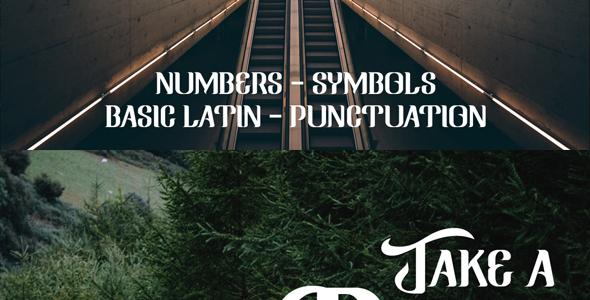
Ringam Typeface
Hi there! Presenting to you my new item, ‘Ringam’ typeface, the display font inspired from ornate lettering and vintage style. Recommended for your poster, quotes or headline. Maybe this typeface would be useful in logos too. In OTF & TTF format featured : - Uppercase - Lowercase - Numbers - Punctuation - Basic latin glyphs Well, Thank you for visiting and feel free to drop me a message if you have any question or advices.